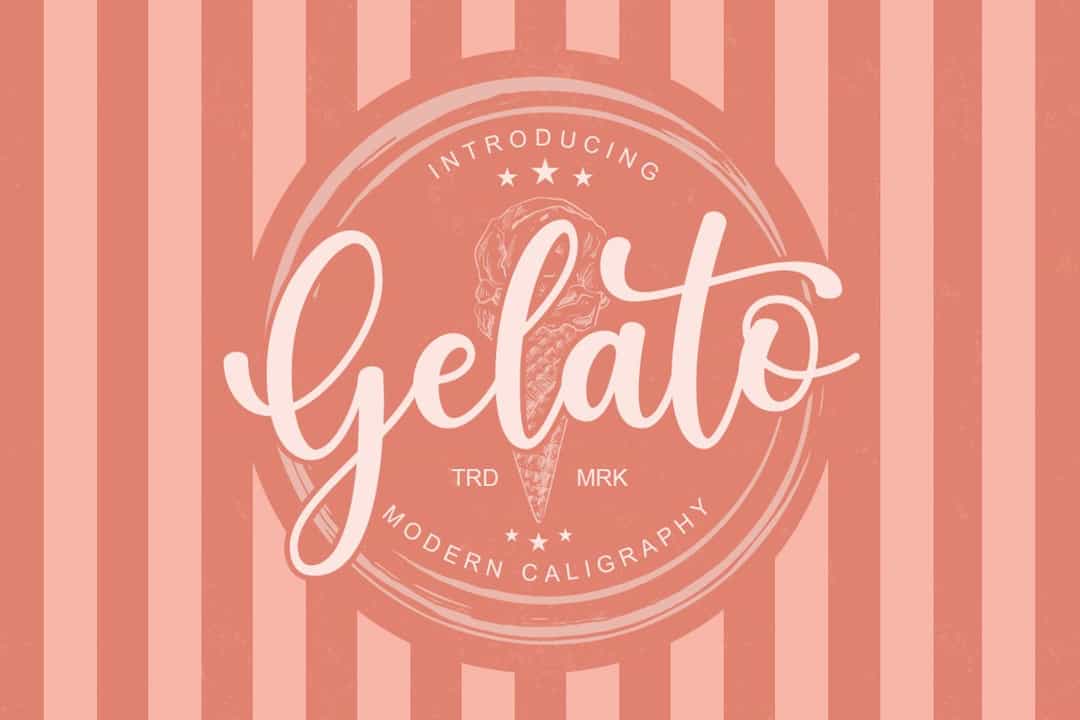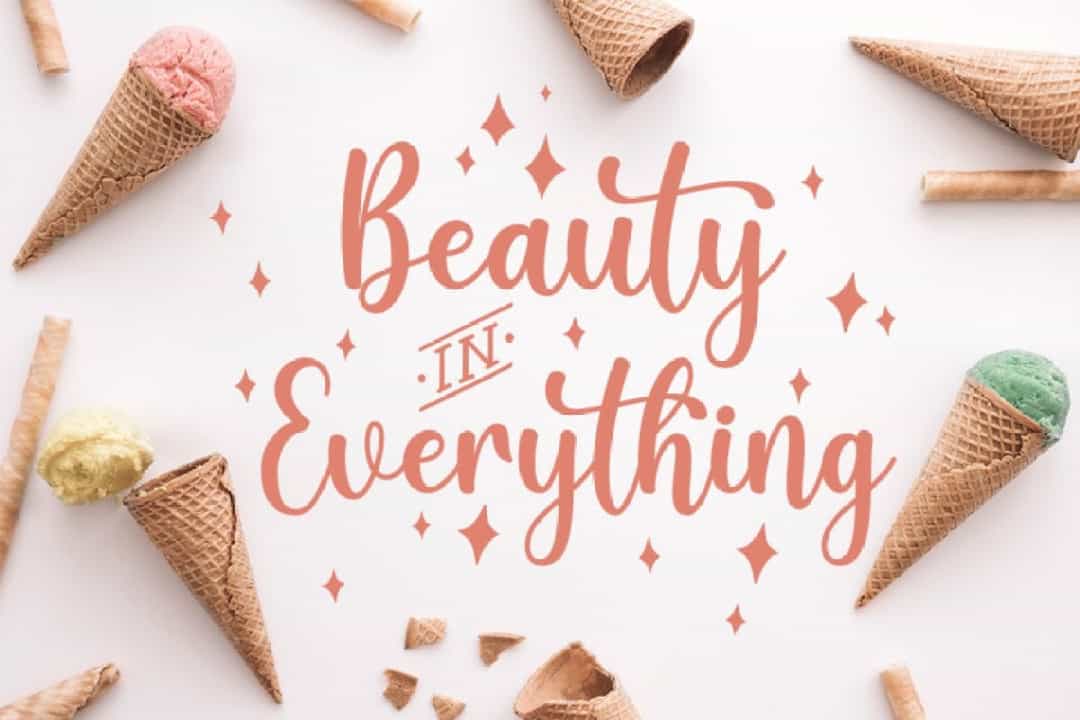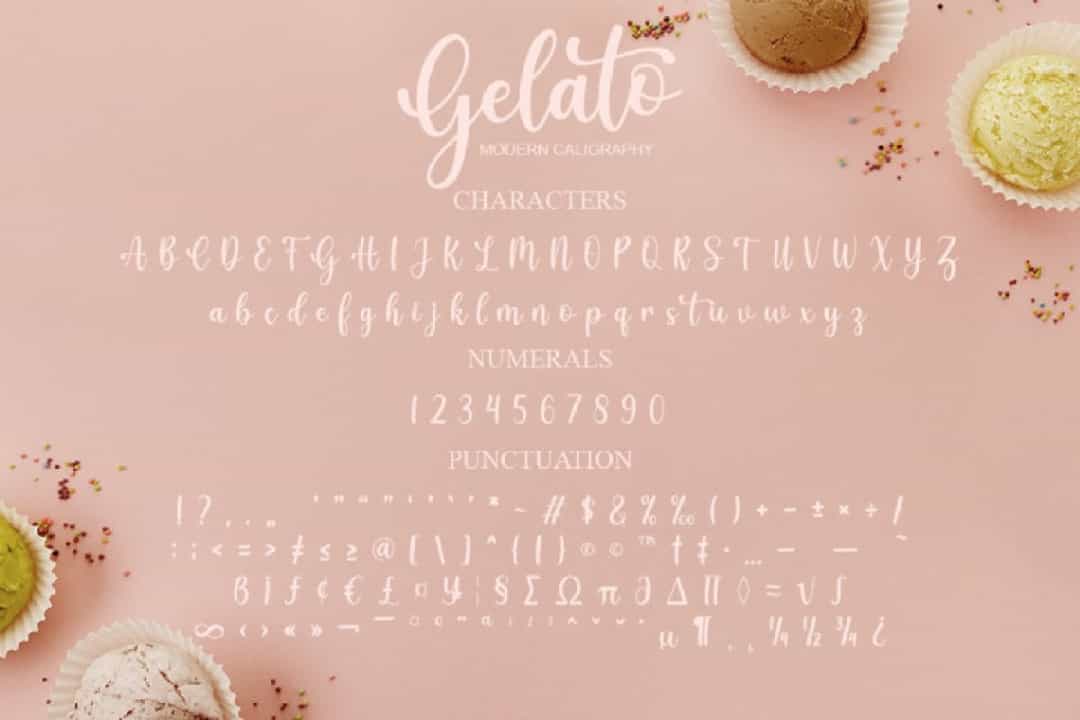
Discover Gelato Font, part of the Calligraphy Script collection—a versatile and unique font perfect for adding a personal touch to your projects. Download it for free and enjoy crafting designs with style, from invitations to social media posts. This font is available exclusively for personal use, giving you the freedom to create without limits. Unlock your creativity with Gelato Font today!
Gelato is a classy fluid font which is perfect for all your projects because it can easily capture the uniqueness and the vintage look to make beautiful pieces of work. Gelato is here for you and you can create a masterpiece today with it!